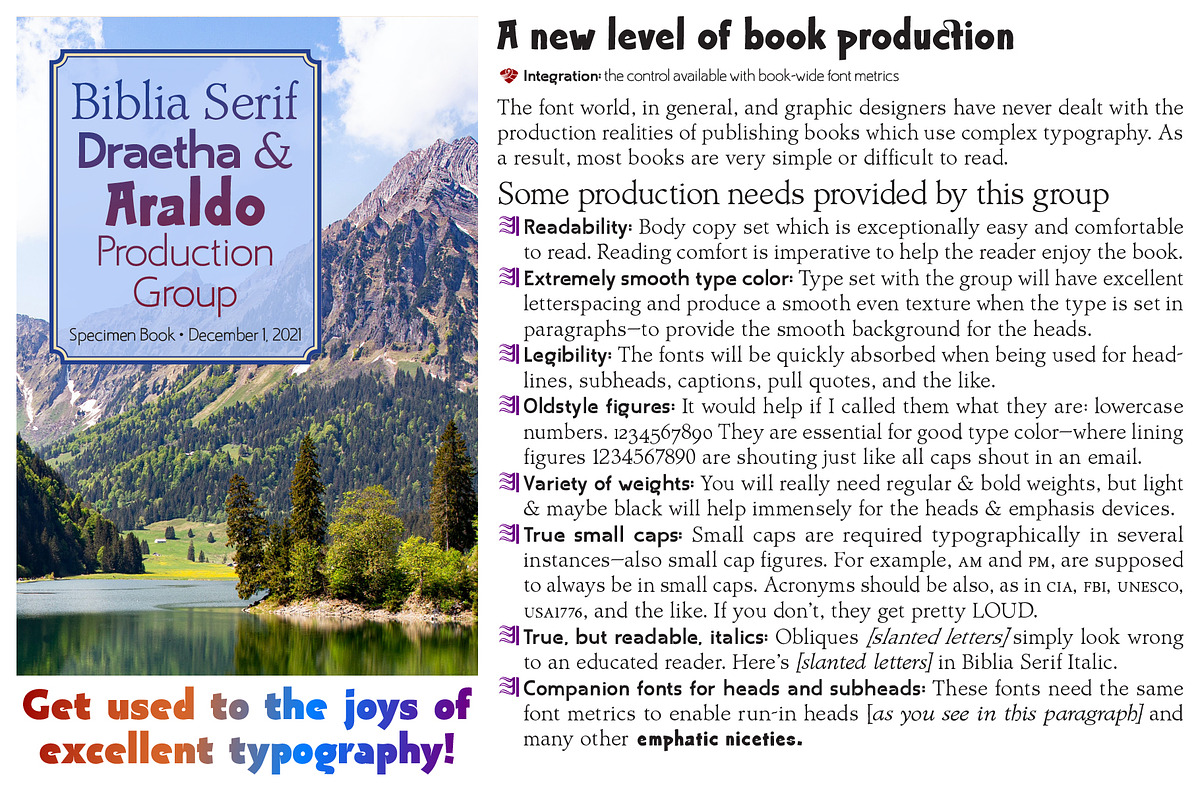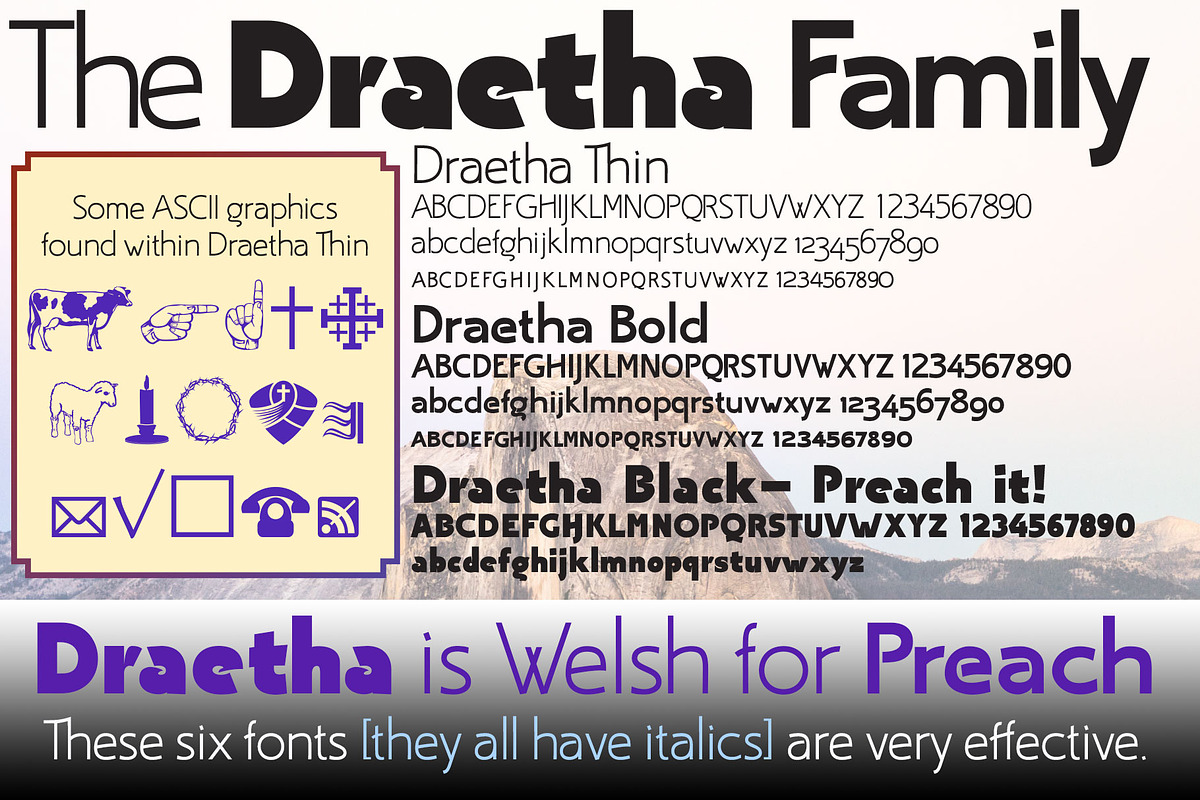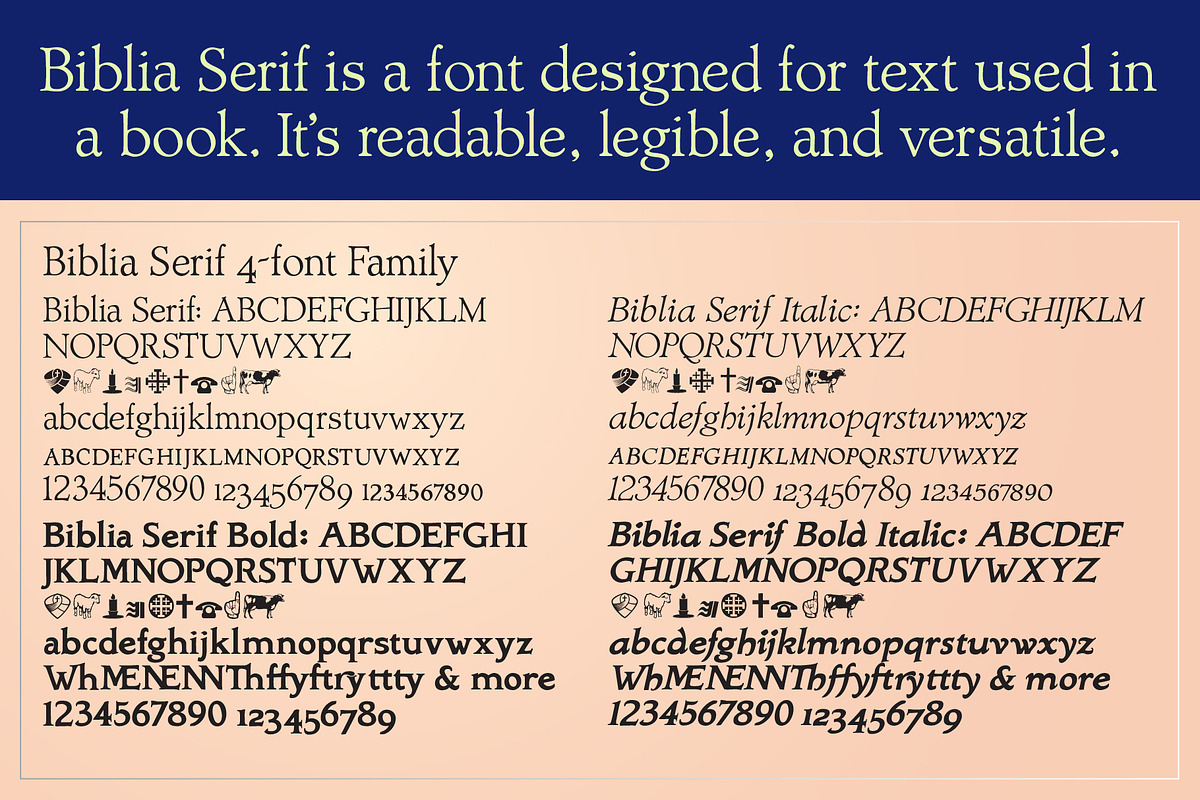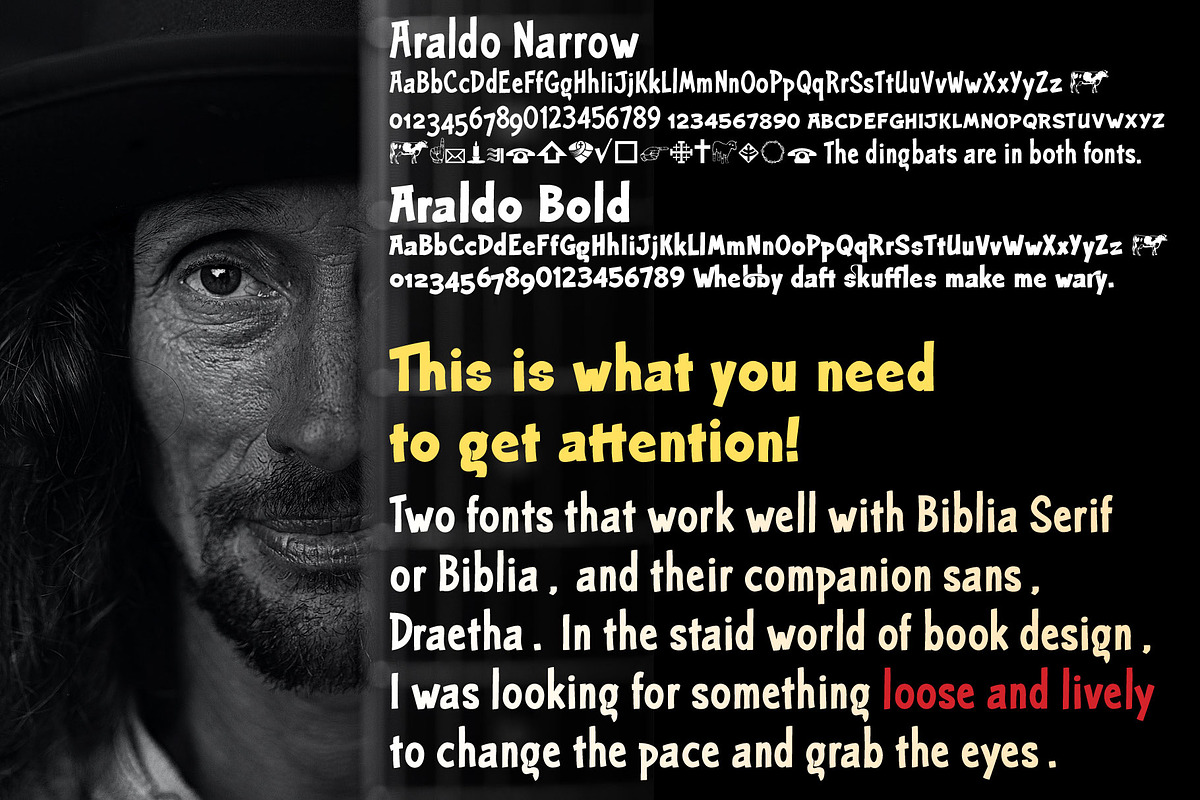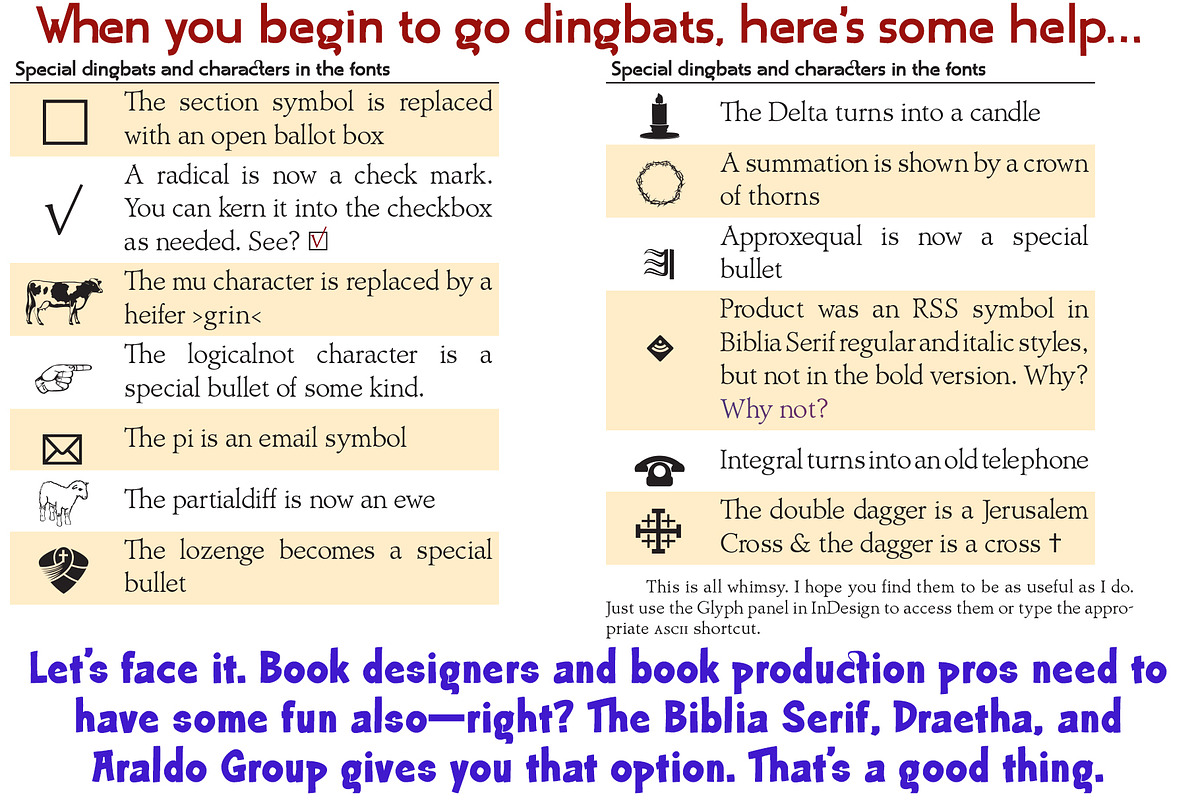
Biblia Serif, Draetha, Araldo Group
This is a powerful group of three font families specifically designed for the effective design of books. In the Biblia Serif package twelve fonts in three families, everything is very conservative. The thinking was that Biblia Serif is really a normal humanist font family designed to disappear into the design. Remembering that typography, when it’s noticed, is rarely the message. So Draetha and Araldo were designed with the same font metric and a bit of an attitude. Yet they fit so well that they don't interfere with the book content. Obviously these fonts are part of my increasing focus on fonts which I, and my friends, can use in the production of our Christian projects. Yes, Biblia is the word for Bible in Italian and other languages. Ignoring the fact that it really just means book, my thought was, What do I call a striking sans serif, designed to work with these fonts, for heads & subheads? Well, Draetha is Welsh for Preach. Araldo is Italian for Herald or a proclaimer. Makes sense to me.